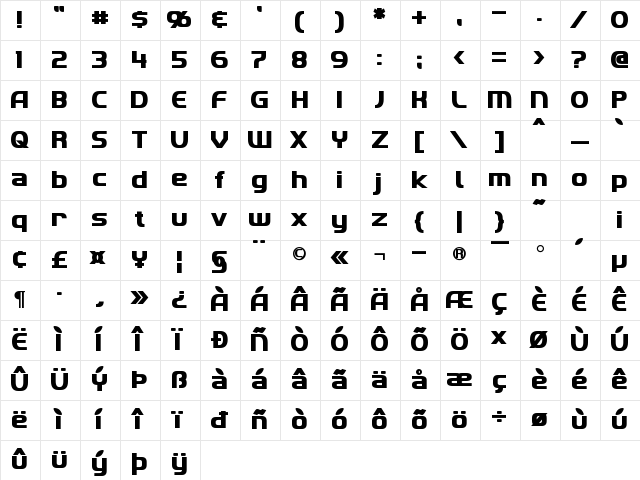
Imaki Bold Free Font
Imaki Bold
Foundry: Pixel Sagas
Designer: Neale Davidson
Imaki Family
Design Context for Imaki
Imaki is a composed and adaptable typeface that performs quietly and consistently across a wide range of design contexts. Its bold stroke weight gives it real presence on the page.